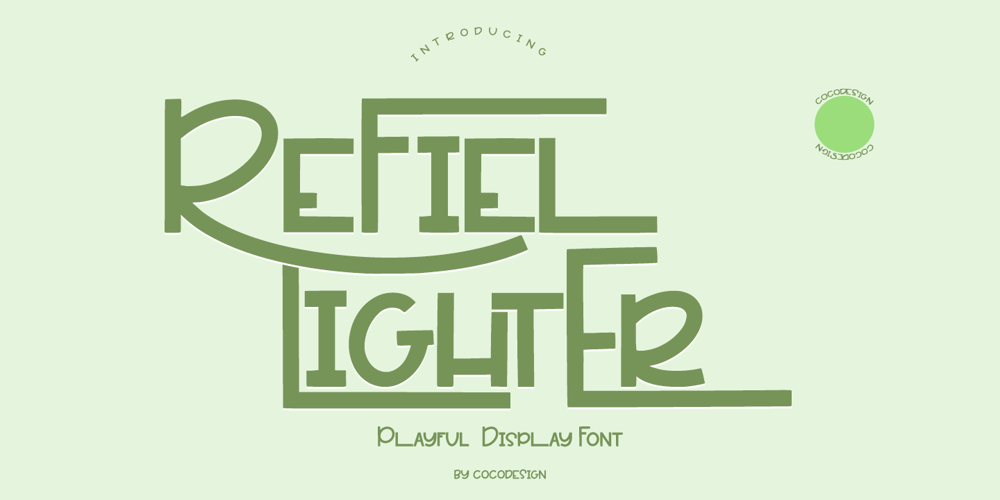
Refiel Lighter
Refiel Lighter font
Refiel Lighter Font Family was designed by Muhammad Zaini and published by Cocodesign. Refiel Lighter contains 1 styles and family package options. Introducing Refiel Lighter – a jubilant and agile display font, complete with a standard ‘Regular’ style. Remarkably casual yet stunningly beautiful, Refiel Lighter takes center stage with its distinctive swash. Perfectly adaptable, it effortlessly enhances a myriad of platforms – from logo creation, standout packaging, charming wedding invites to imprinting a unique identity on your brand. Blaze through headlines with its versatility, grab attention on signs and labels, or add an artistic flourish to book covers and poster designs. Moreover, Refiel Lighter adds a touch of sophistication to signatures and brilliantly brings words to life in quotes. Experience the transformative power of Refiel Lighter, where font meets magic.